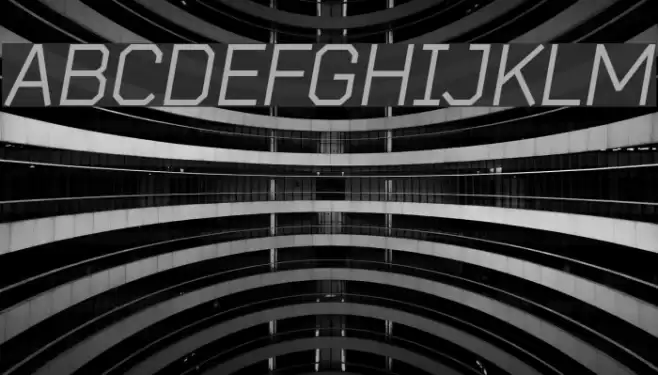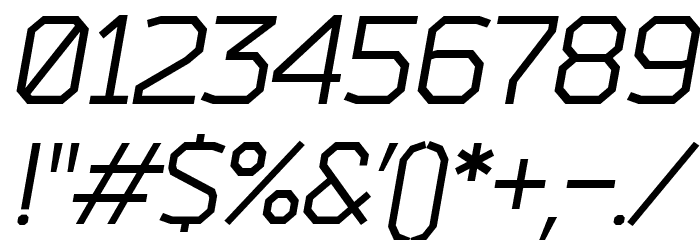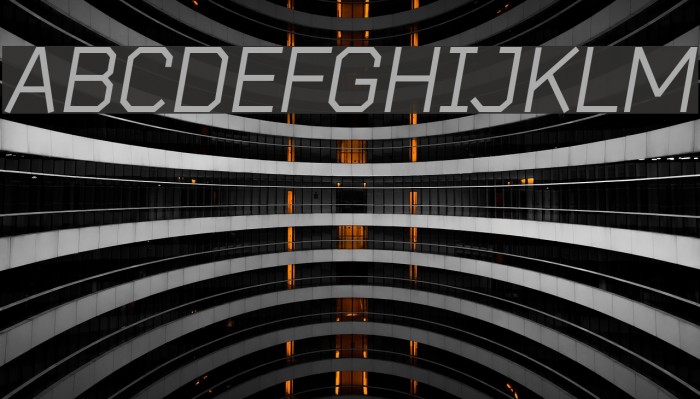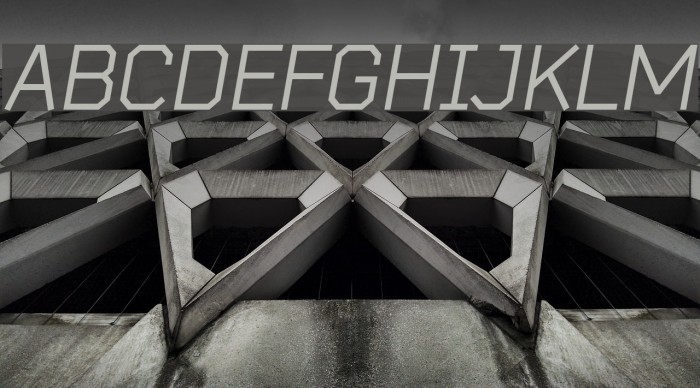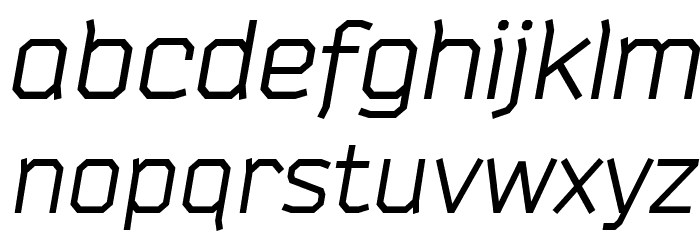
Bender-Italic Font
Bender-Italic Description
This font features a modern, geometric design with a distinct italic slant, giving it a dynamic and forward-moving appearance. The characters are constructed with clean, straight lines and sharp angles, creating a sense of precision and technicality. The uppercase and lowercase letters maintain a consistent style, with the lowercase mirroring the angularity of the uppercase. Numbers and special characters are designed to match the overall aesthetic, ensuring uniformity across all elements. The font's structure is both bold and sleek, making it suitable for contemporary design projects.
A modern, geometric italic font with sharp angles and clean lines from Uncategorized fonts.
- Proposed Projects: Ideal for technology branding, modern advertising, and innovative product packaging.